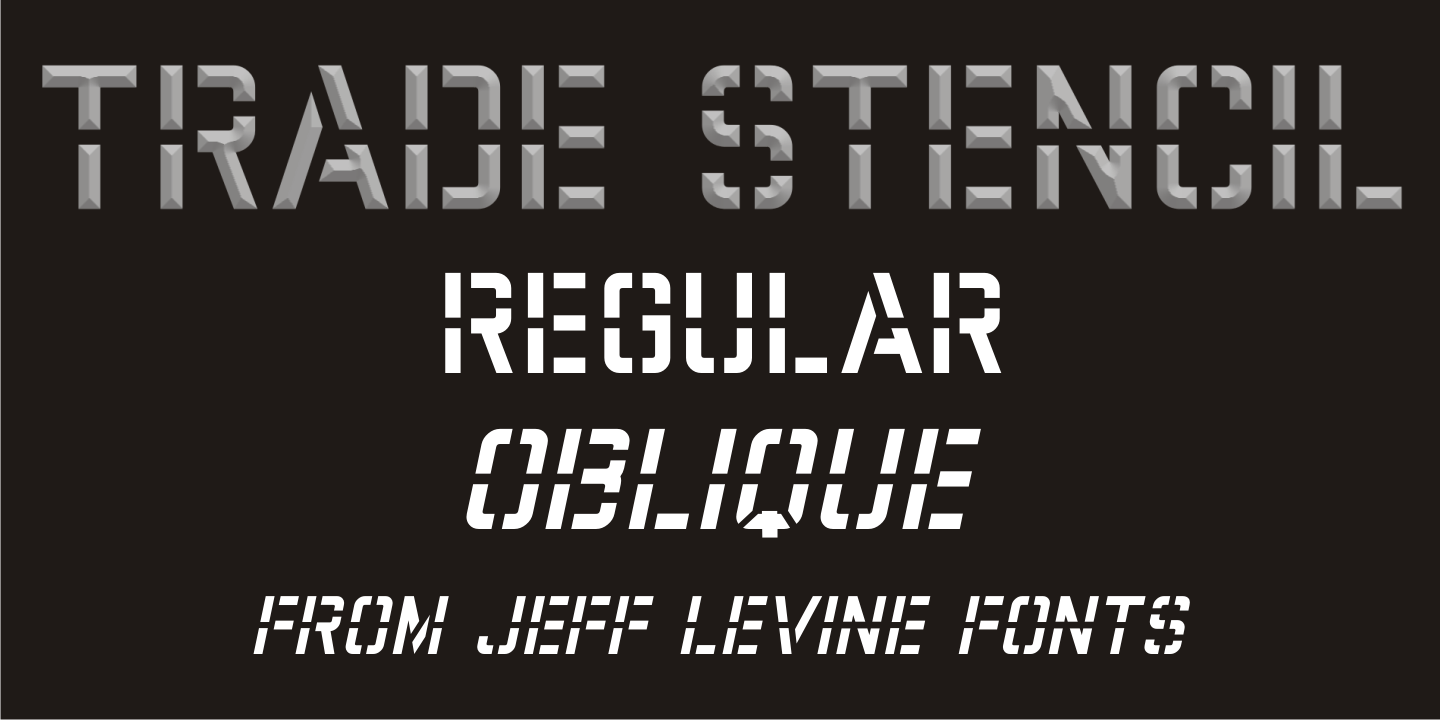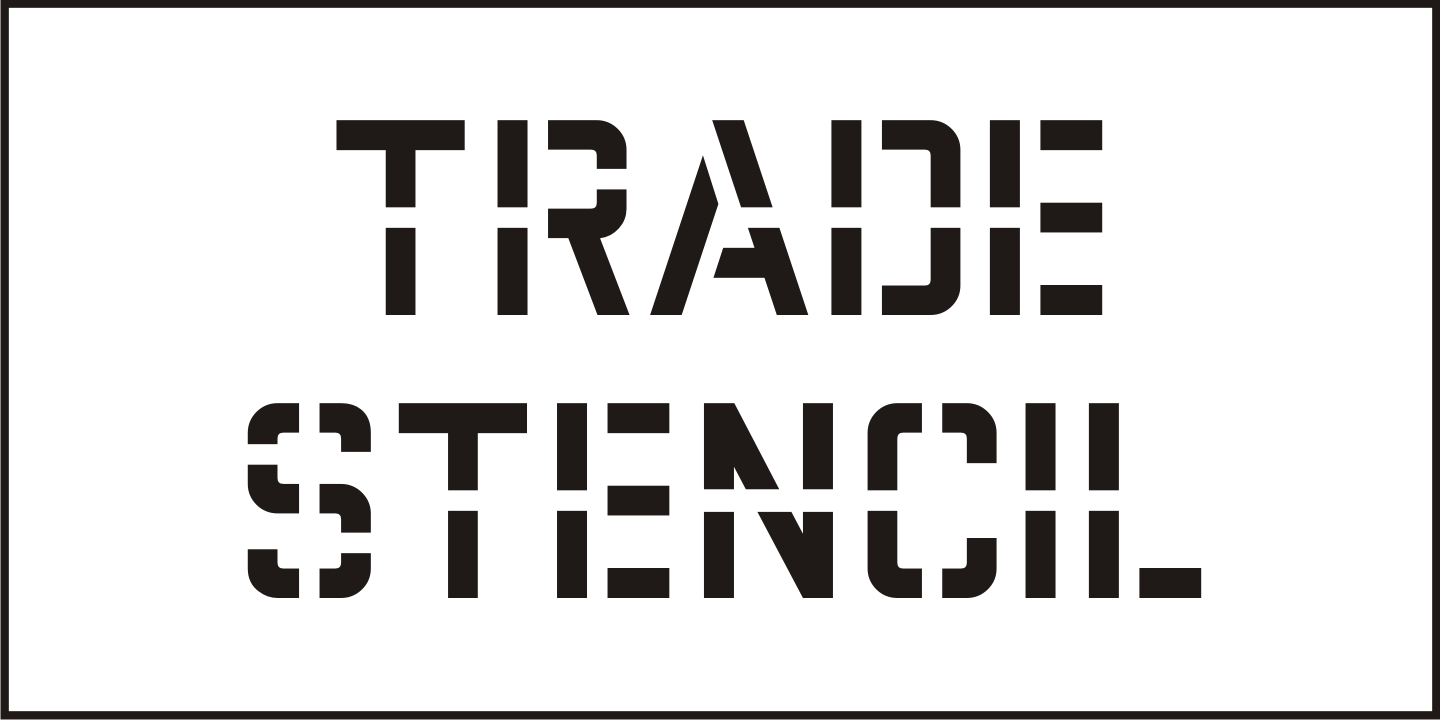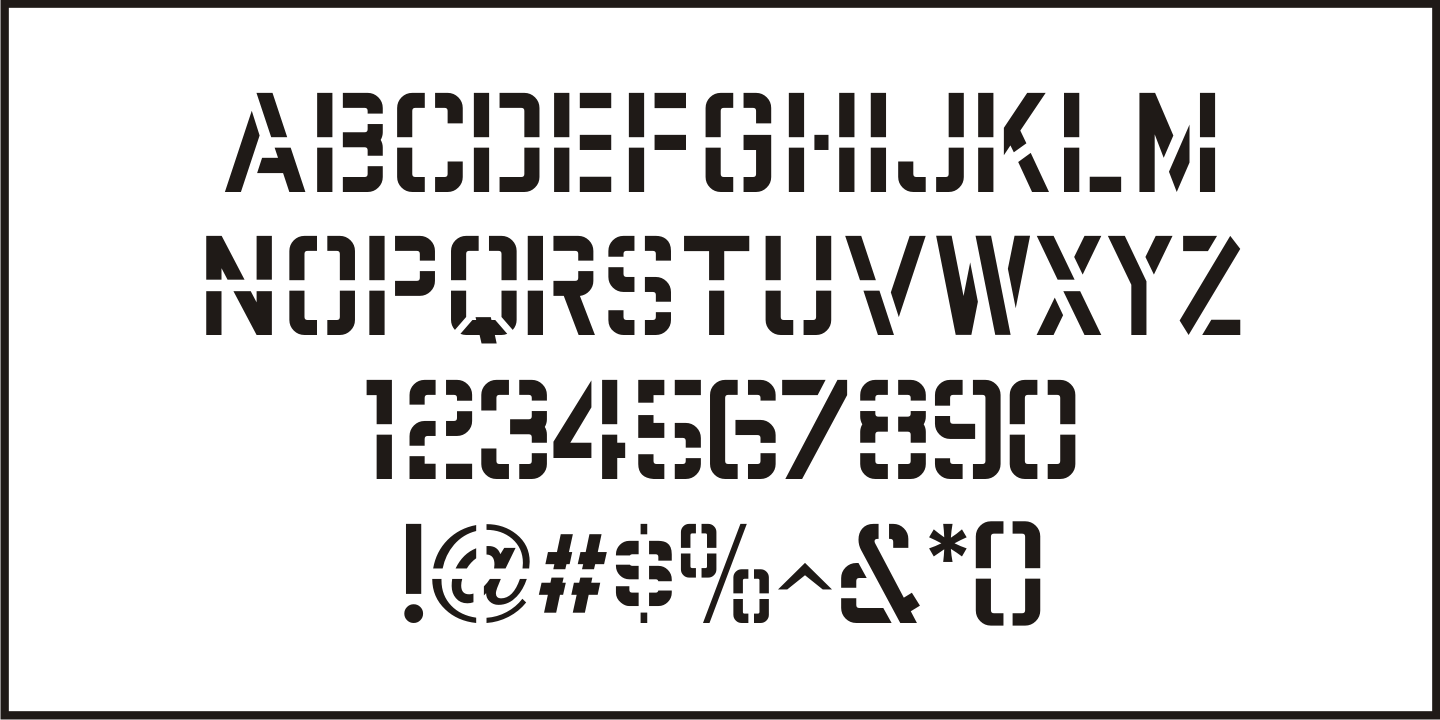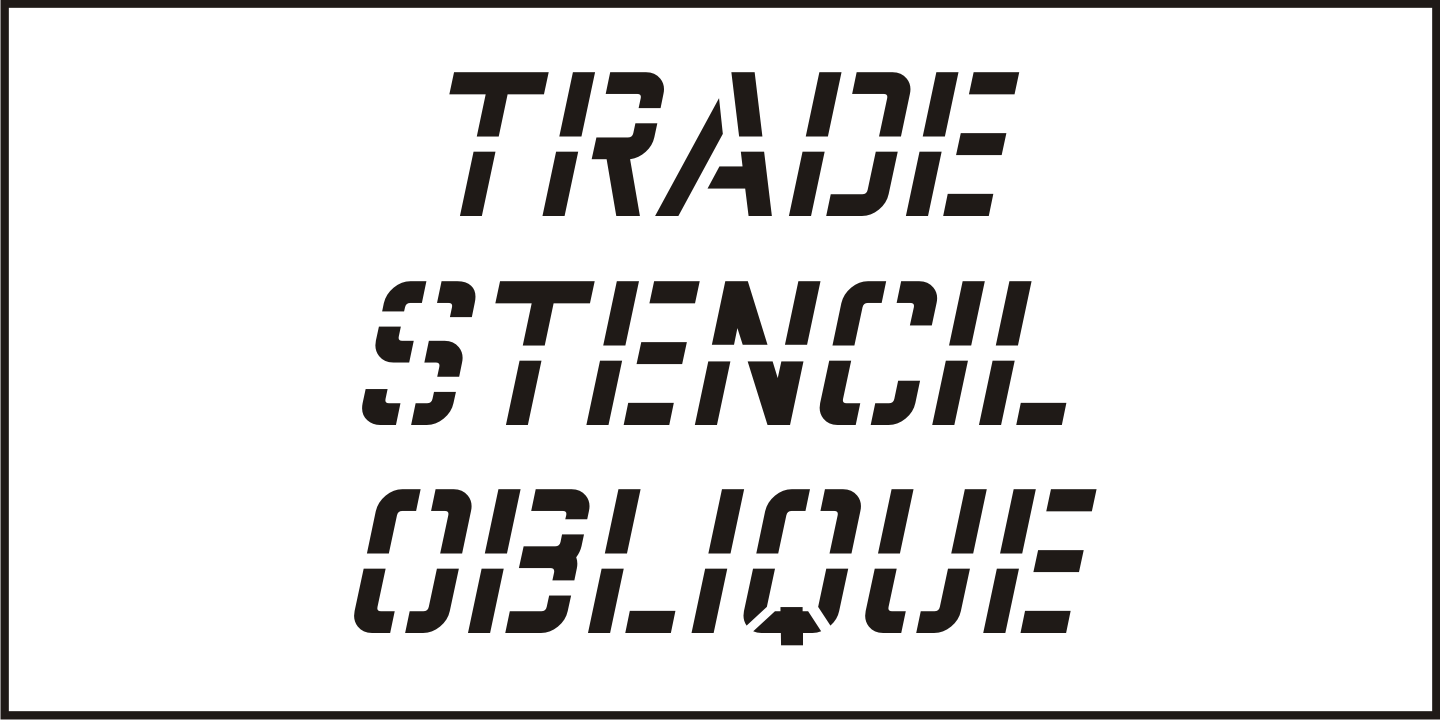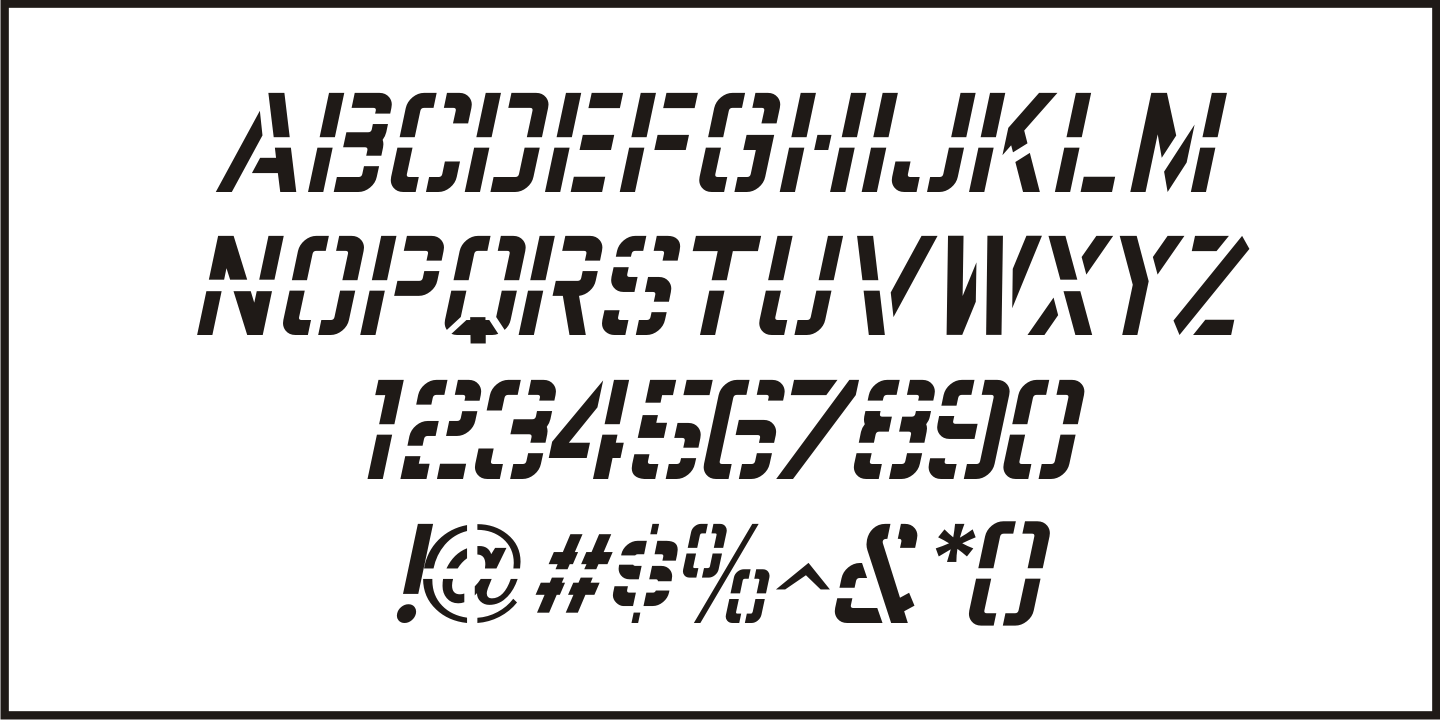
Trade Stencil
Spotted in an online auction was a set of brass stencils (possibly handmade) of which some of the characters were individually displayed.
The interesting placement of where the letters were broken into stencil parts inspired the creation of Trade Stencil JNL, which is available in both regular and oblique versions.